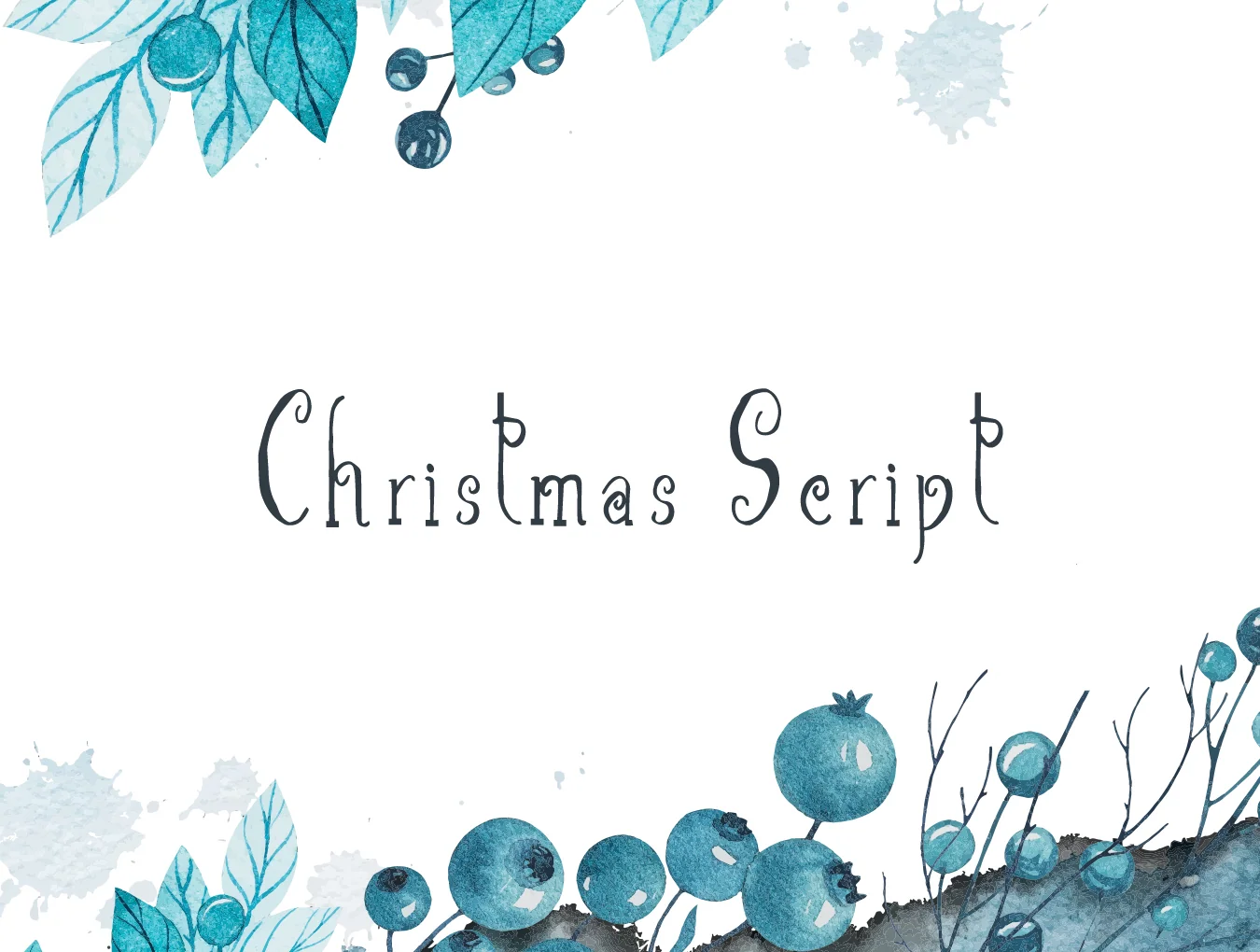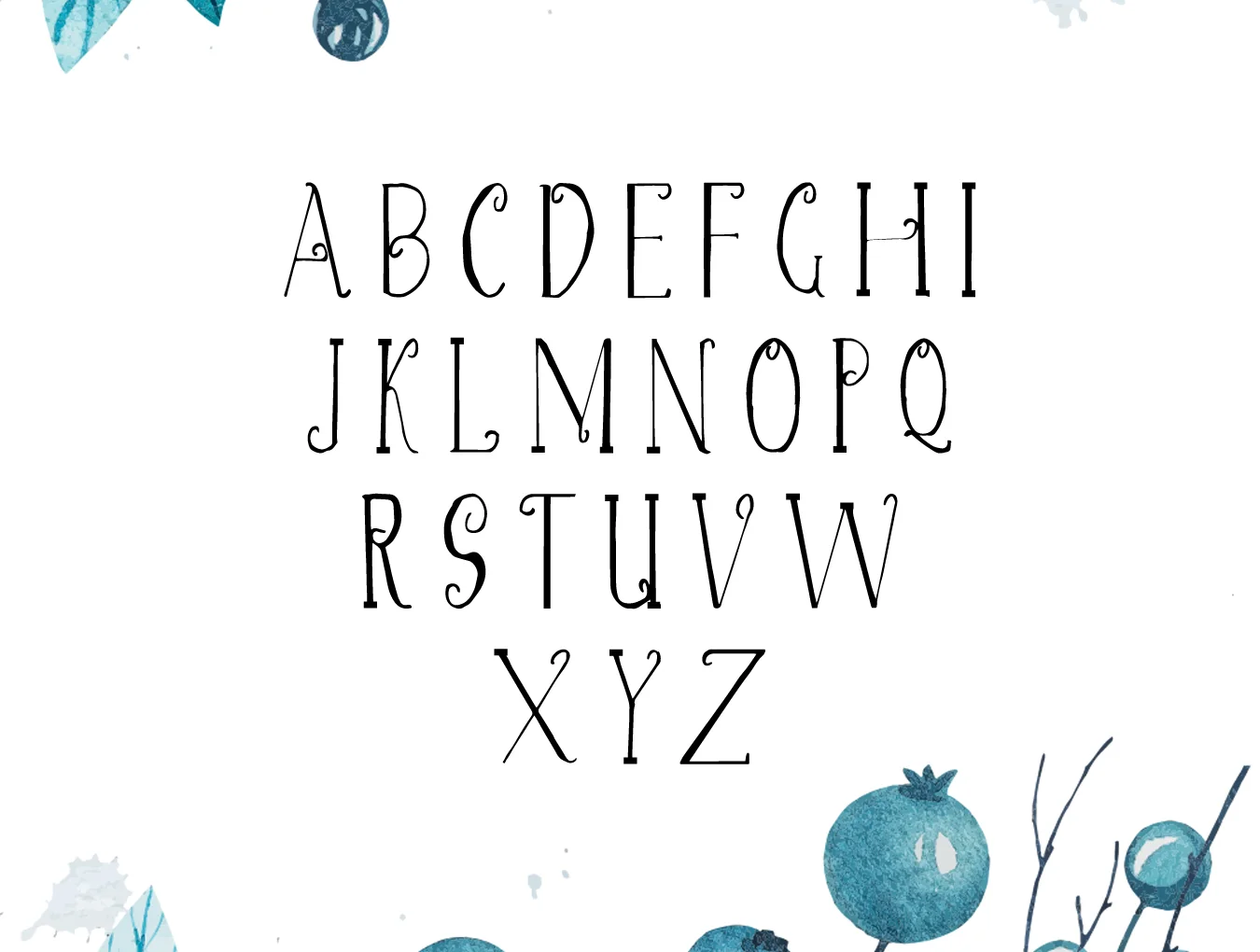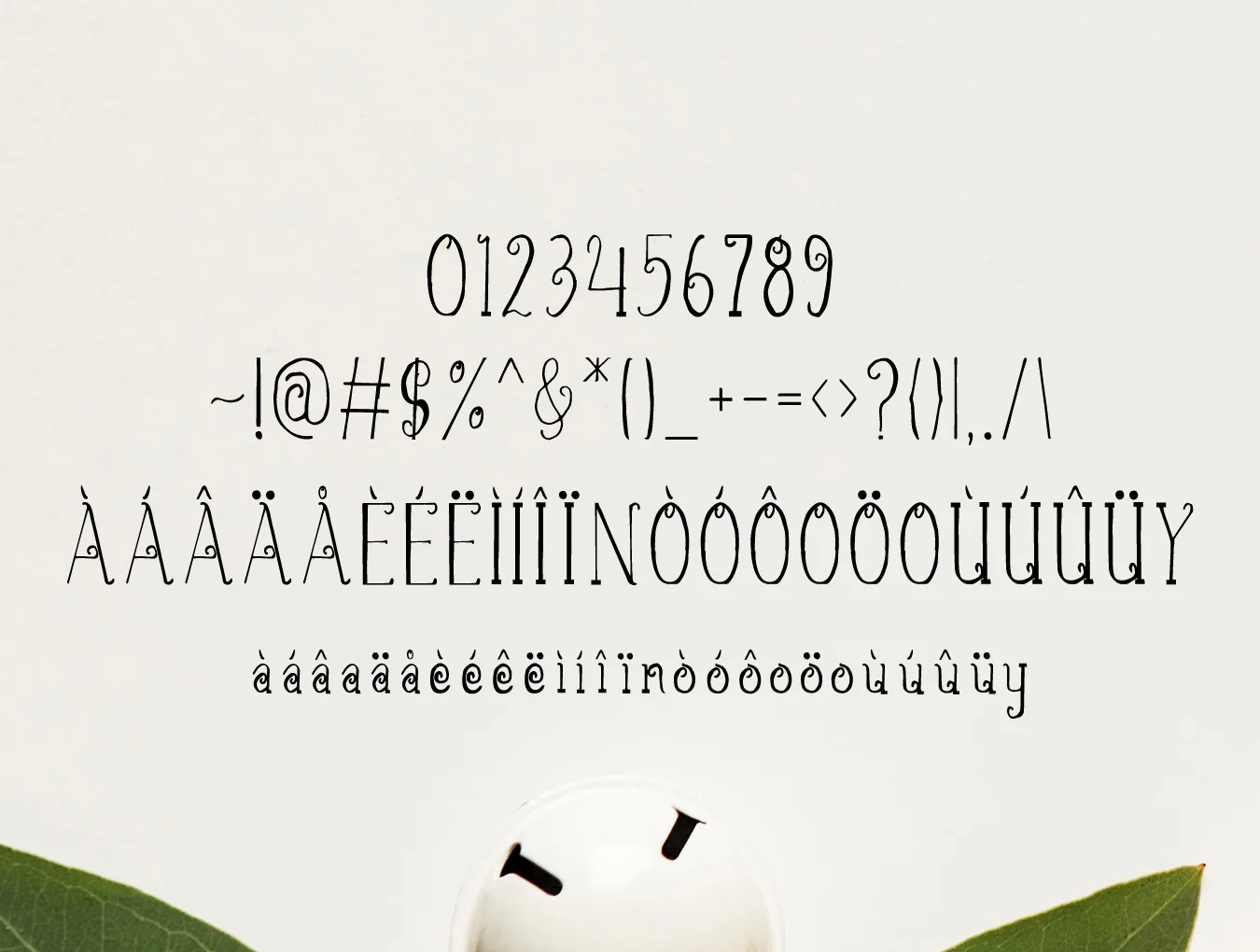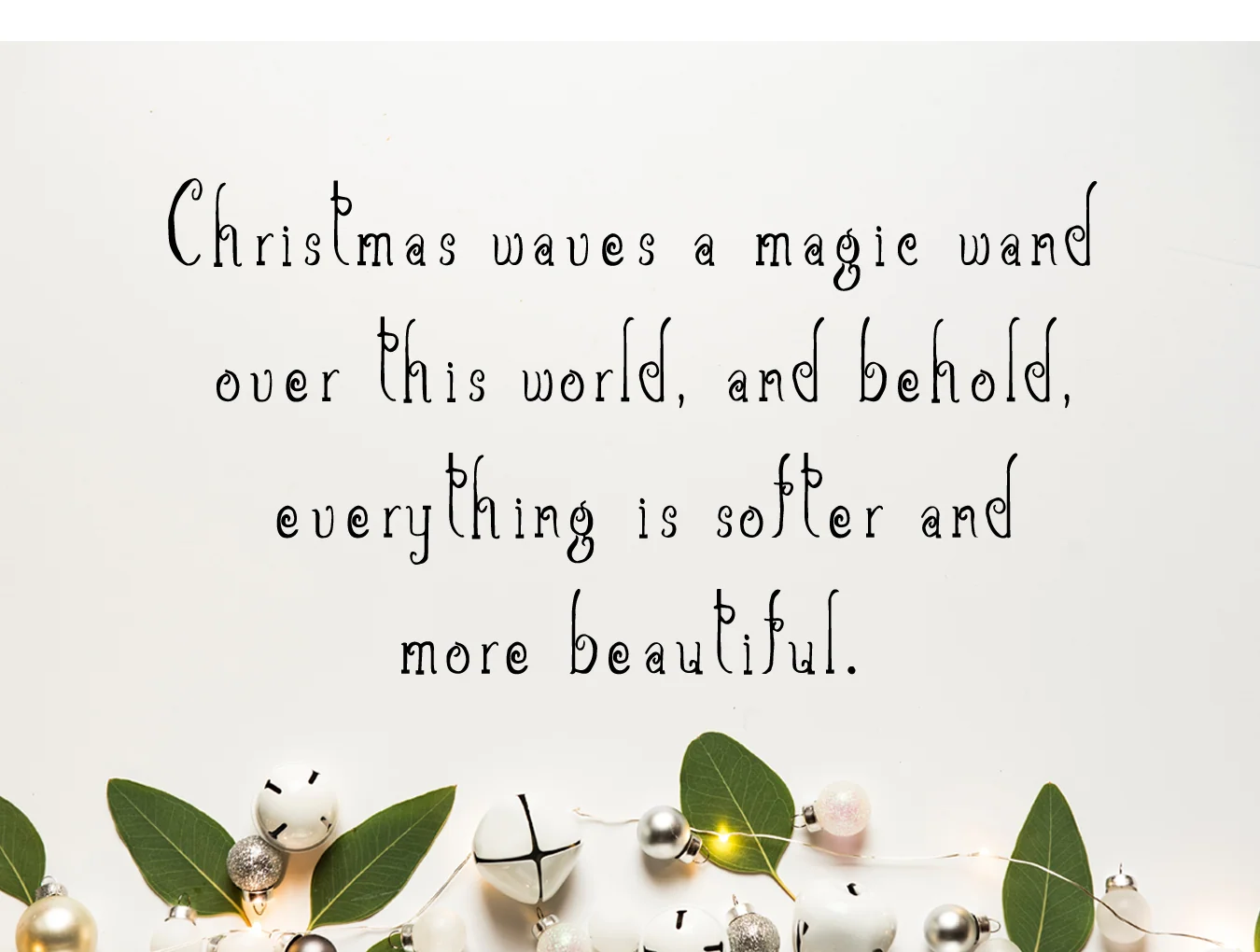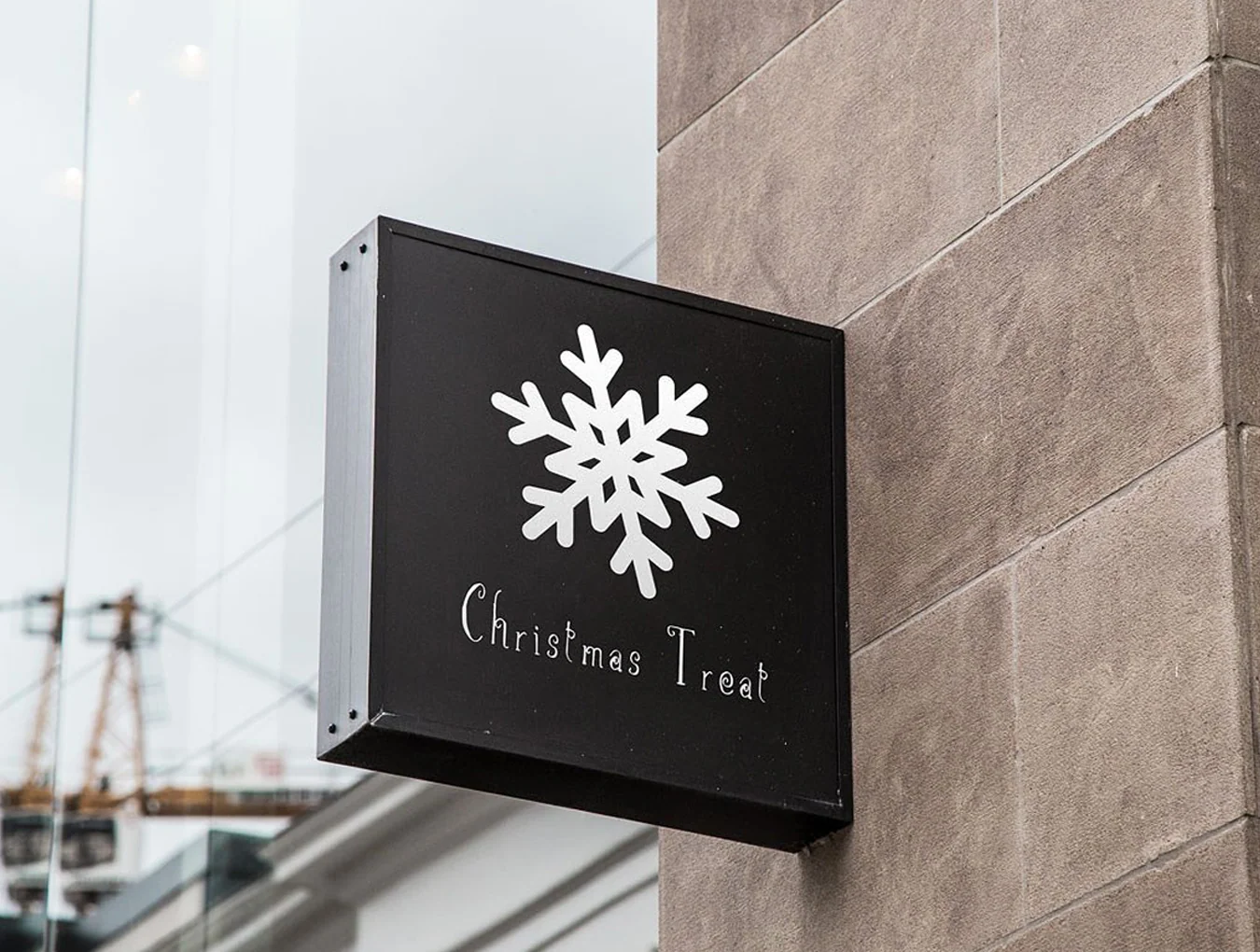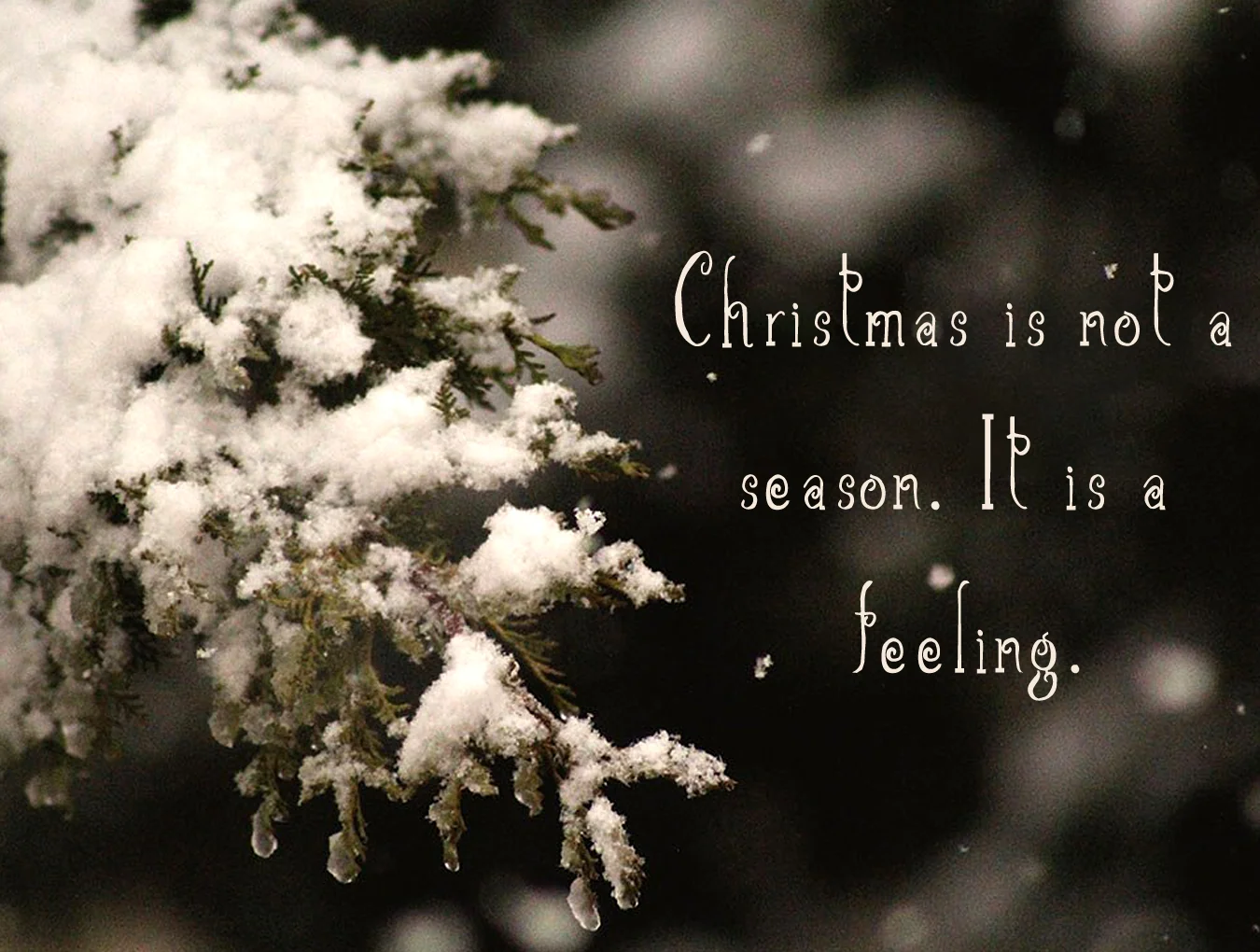
Christmas Script Font
Handwritten Christmas font
Handwritten script typeface
Standard regular weight
Christmas Script is a hand-lettered font crafted to pair beautifully in polished typographic designs. It includes uppercase and lowercase letters, numbers, and select special characters for authentic styling. Ideal for festive Christmas themes or feminine projects, it suits cards, invitations, shirts, logos, quotes, ads, overlays, banners, branding, and more.